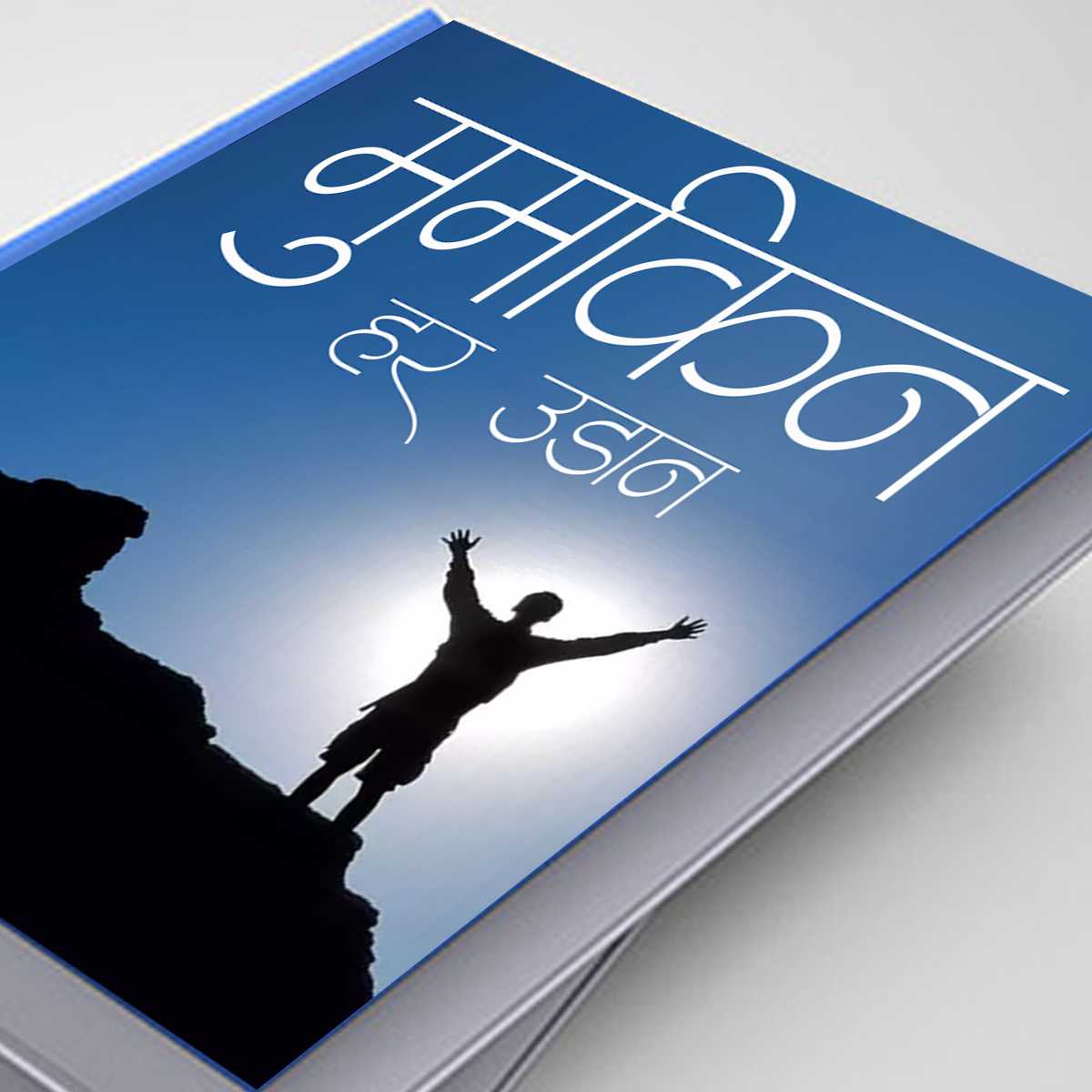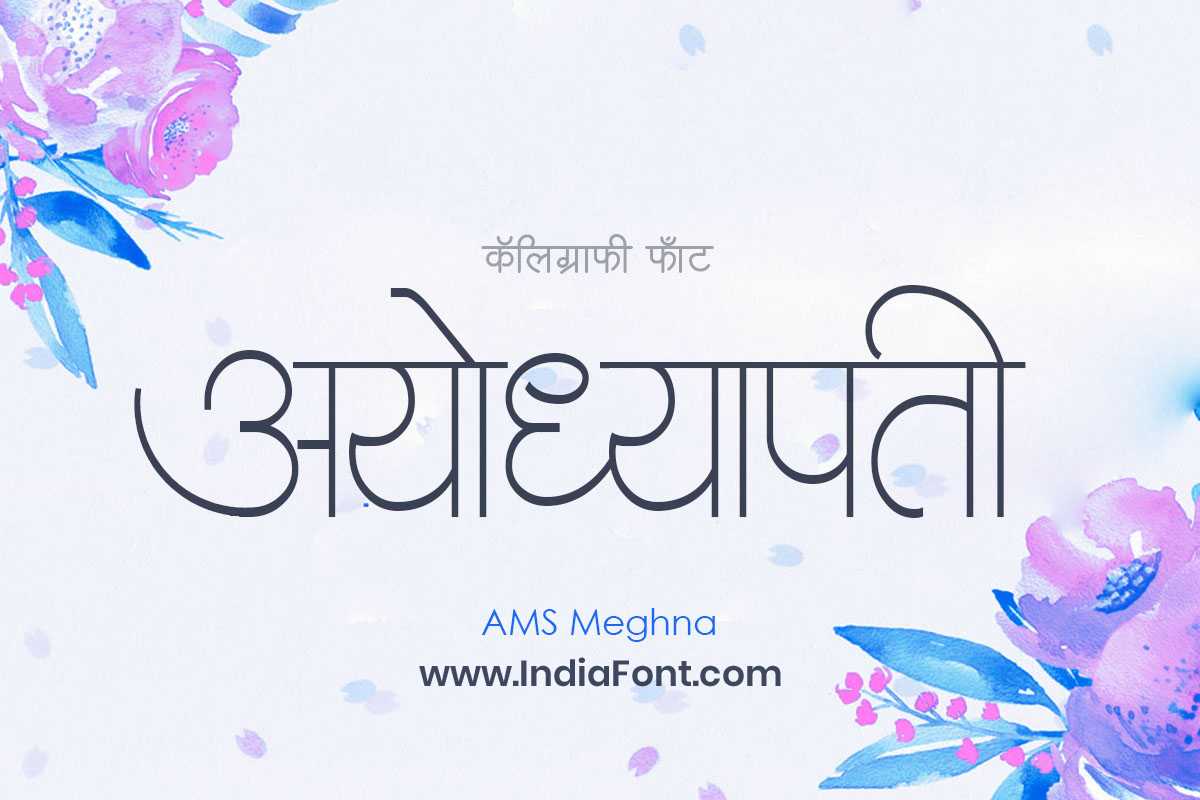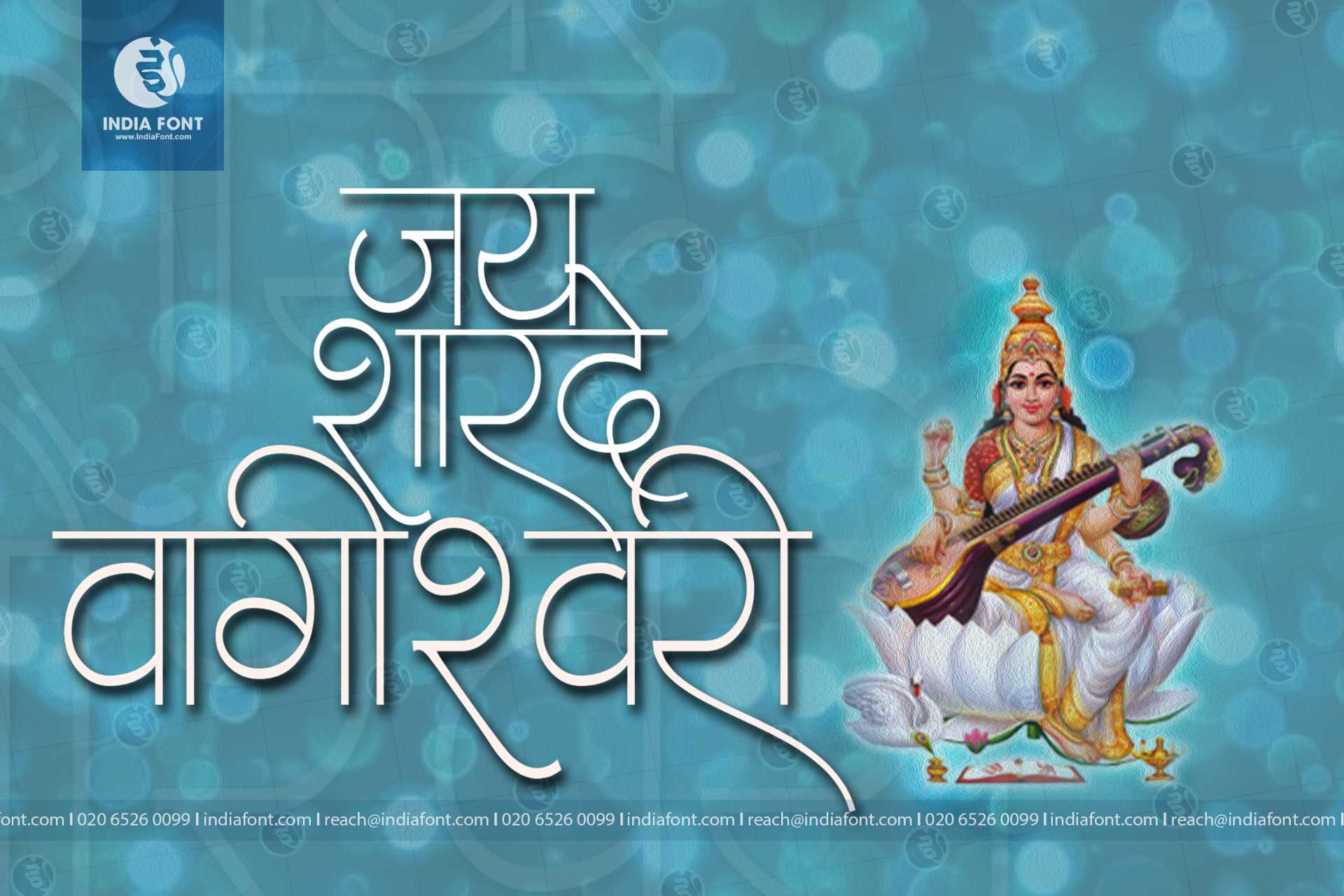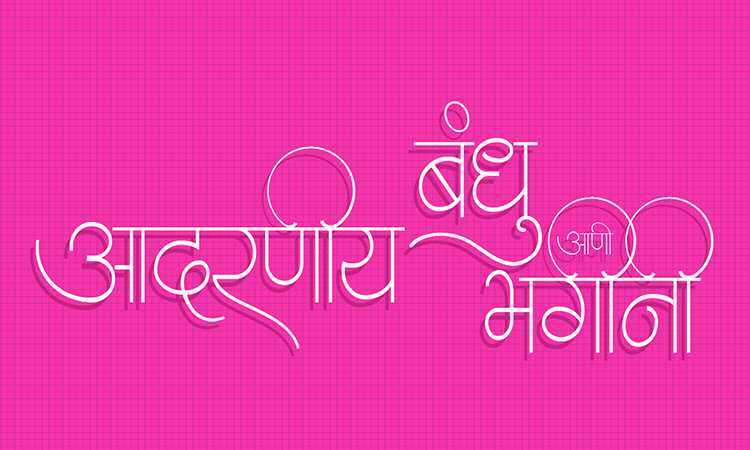
AMS Meghna
Enhance the readability and elegance of your publications with AMS Meghna, a font designed to deliver a seamless reading experience. This publication font is perfect for designers searching for stylish Hindi fonts, fonts suitable for magazine layouts, or fonts that offer free font download options.
AMS Meghna Design Inspiration
About AMS Meghna Font
Enhance the readability and elegance of your publications with AMS Meghna, a font designed to deliver a seamless reading experience. This publication font is perfect for designers searching for stylish Hindi fonts, fonts suitable for magazine layouts, or fonts that offer free font download options. This publication font combines elegance with functionality, making it perfect for various design applications.
AMS Meghna is a professionally crafted publication typeface that brings clarity and style to your projects. Designed with attention to detail, it supports hindi and marathi characters flawlessly.
Whether you're working on invitations, books-publications, social-media-graphics, or other creative projects, AMS Meghna delivers consistent performance across both digital and print media. This carefully designed typeface ensures readability and visual appeal in all your design work.
AMS Meghna excels in various design scenarios. Here are the most suitable applications:
About AMS Meghna Typography Style
AMS Meghna is a professionally crafted publication font that exemplifies modern Hindi typography design. This free font is perfect for designers seeking versatile design applications.
Available in 1 weight and supporting hindi, marathi scripts, AMS Meghna offers exceptional versatility for both digital and print media. Whether you're working on invitations, books-publications, social-media-graphics, this carefully designed typeface ensures consistent quality and professional results across all your typography projects.